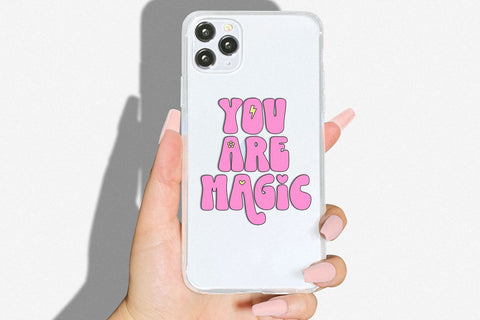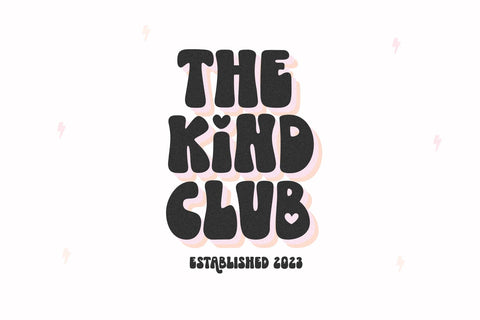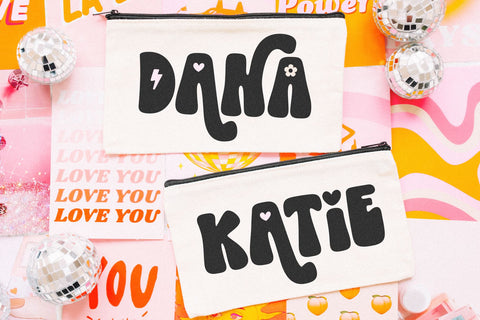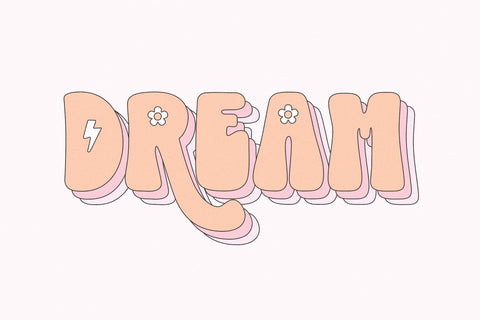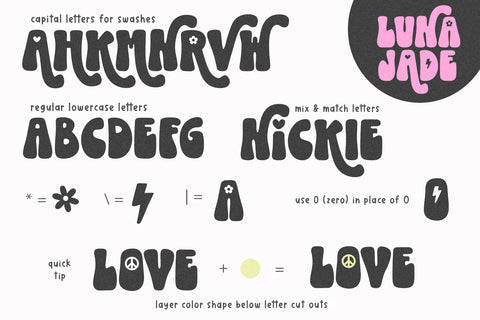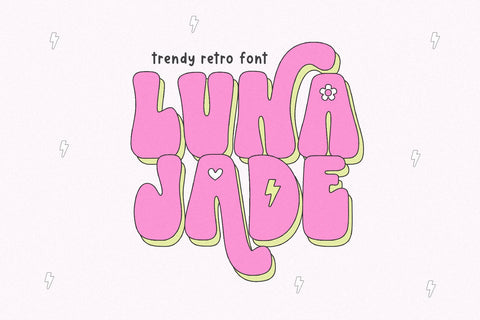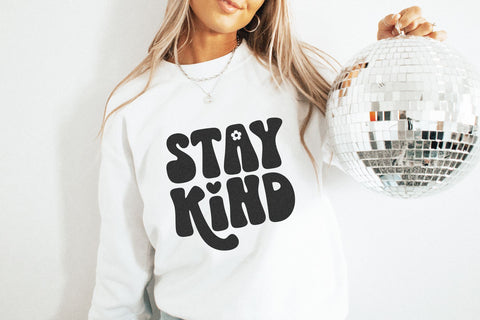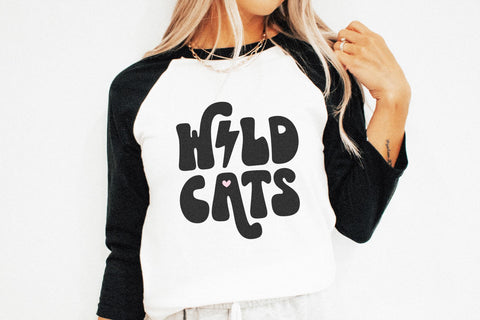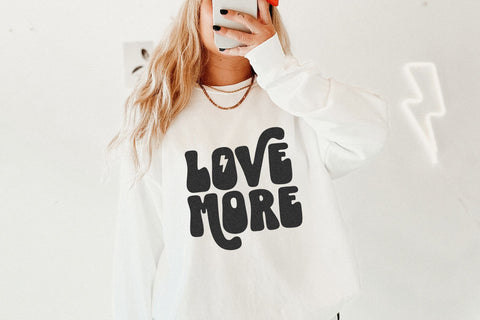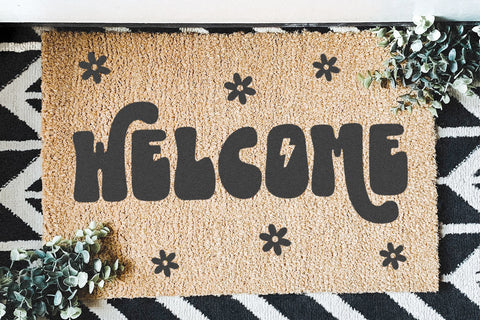
Luna Jade - Retro Swash Font
Luna Jade is a hand-drawn font with a groovy feel!
This is an ALL CAPS font
Use lowercase letters for swash letters - a, h, k, m, n, r, v, w
Special Characters
(*) asterisk = flower
= lightning bolt
| = alternate flower A
0(zero) = O with lightning bolt
This font is perfect for your retro designs, cricut projects, svg designs, shirts, mugs, stickers, procreate, logos and more!